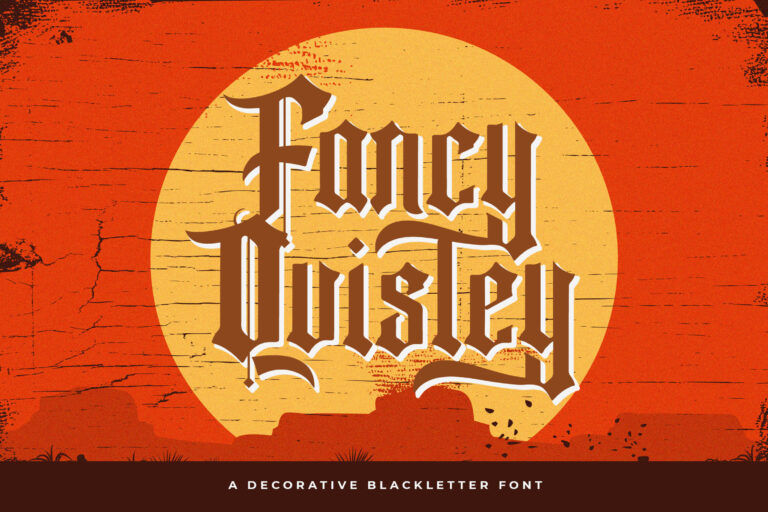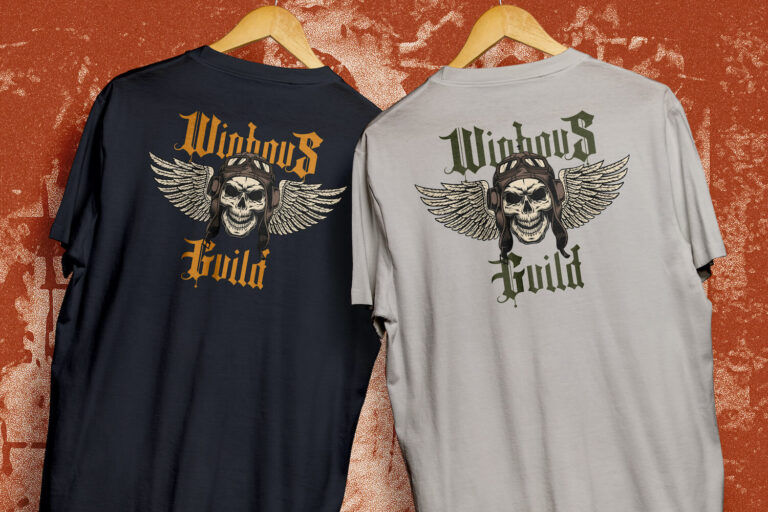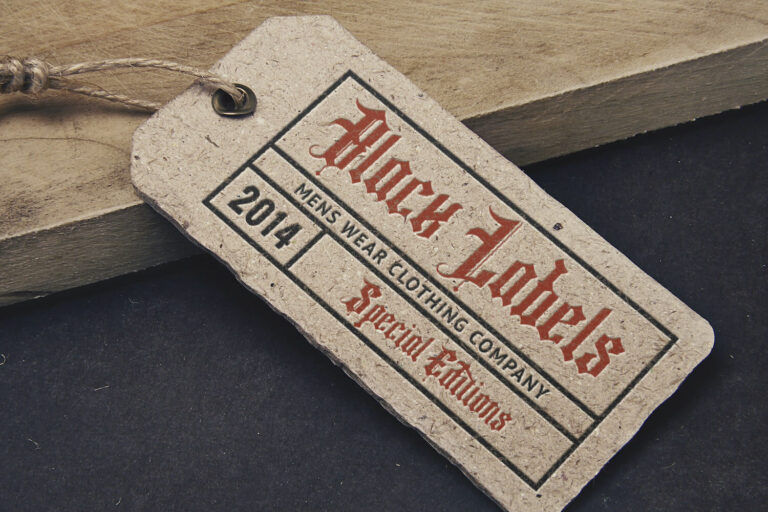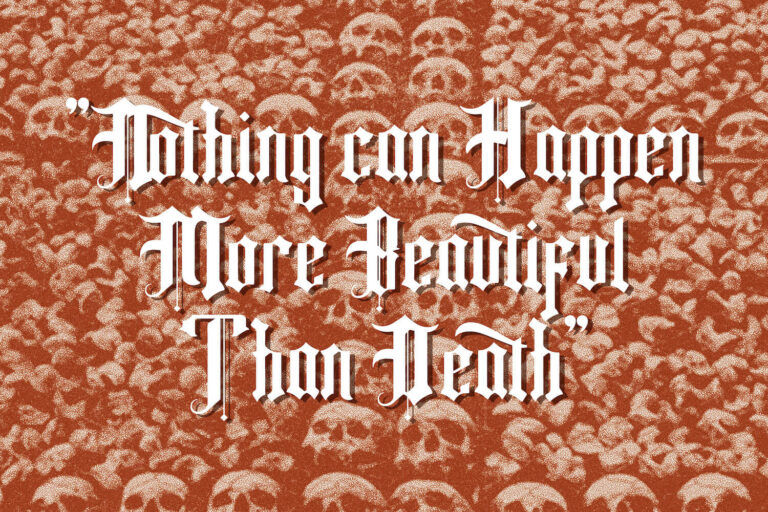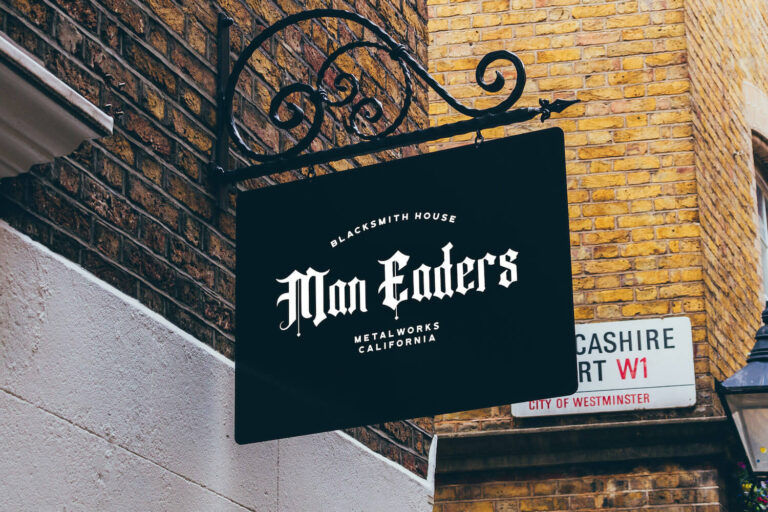
Fancy Quisley Blackletter Font is a striking and dramatic typeface that blends traditional blackletter forms with decorative flair and a bold, modern punch. Its sharply angular strokes, thick verticals, and stylized serifs create a strong gothic presence, while its ornate details and alternates add a sense of craftsmanship and complexity. The result is a font that feels rebellious yet refined—ideal for branding that needs to stand out with power and authenticity.
Fancy Quisley is tailor-made for tattoo merchandise, barbershop logos, metal band artwork, streetwear collections, gaming banners, and poster headlines. It’s especially effective in designs that embrace a vintage, underground, or hard-edged aesthetic. The character set includes full uppercase, lowercase, numerals, punctuation, and alternate forms to give designers flexibility in how much personality they want to inject into each project.
With multilingual support and a unique decorative rhythm, Fancy Quisley Blackletter Font turns any text into a visual emblem that grabs attention and doesn’t let go.